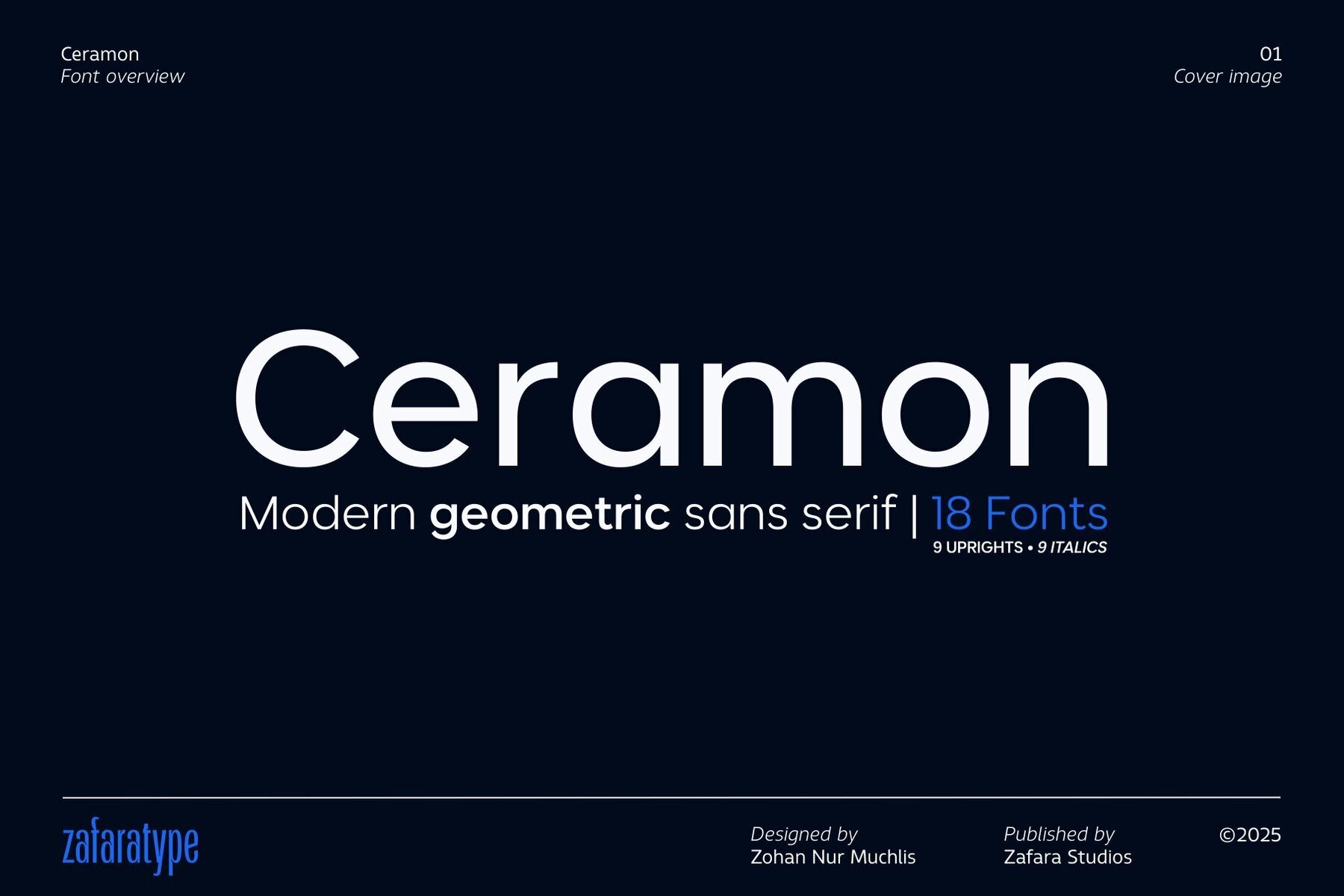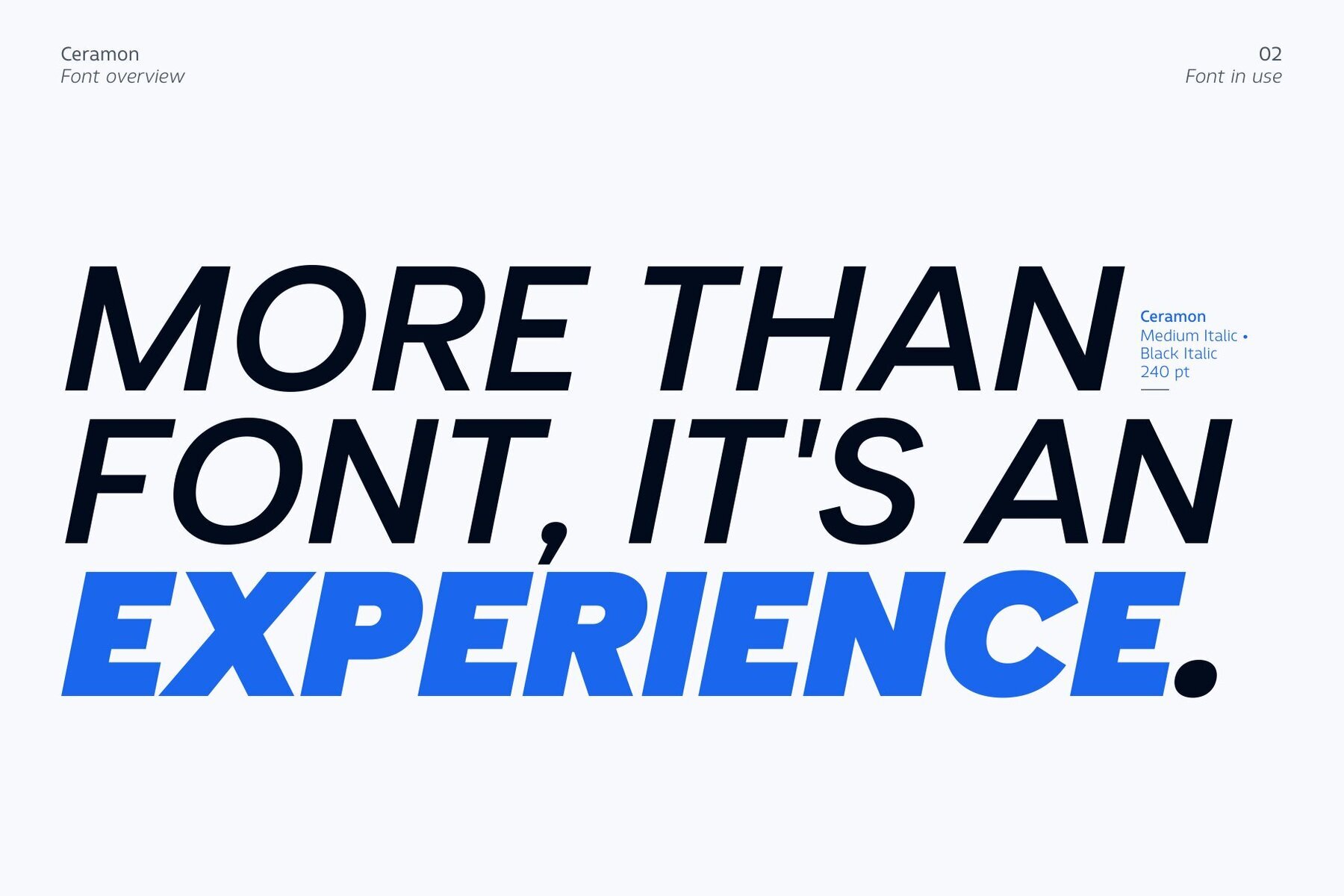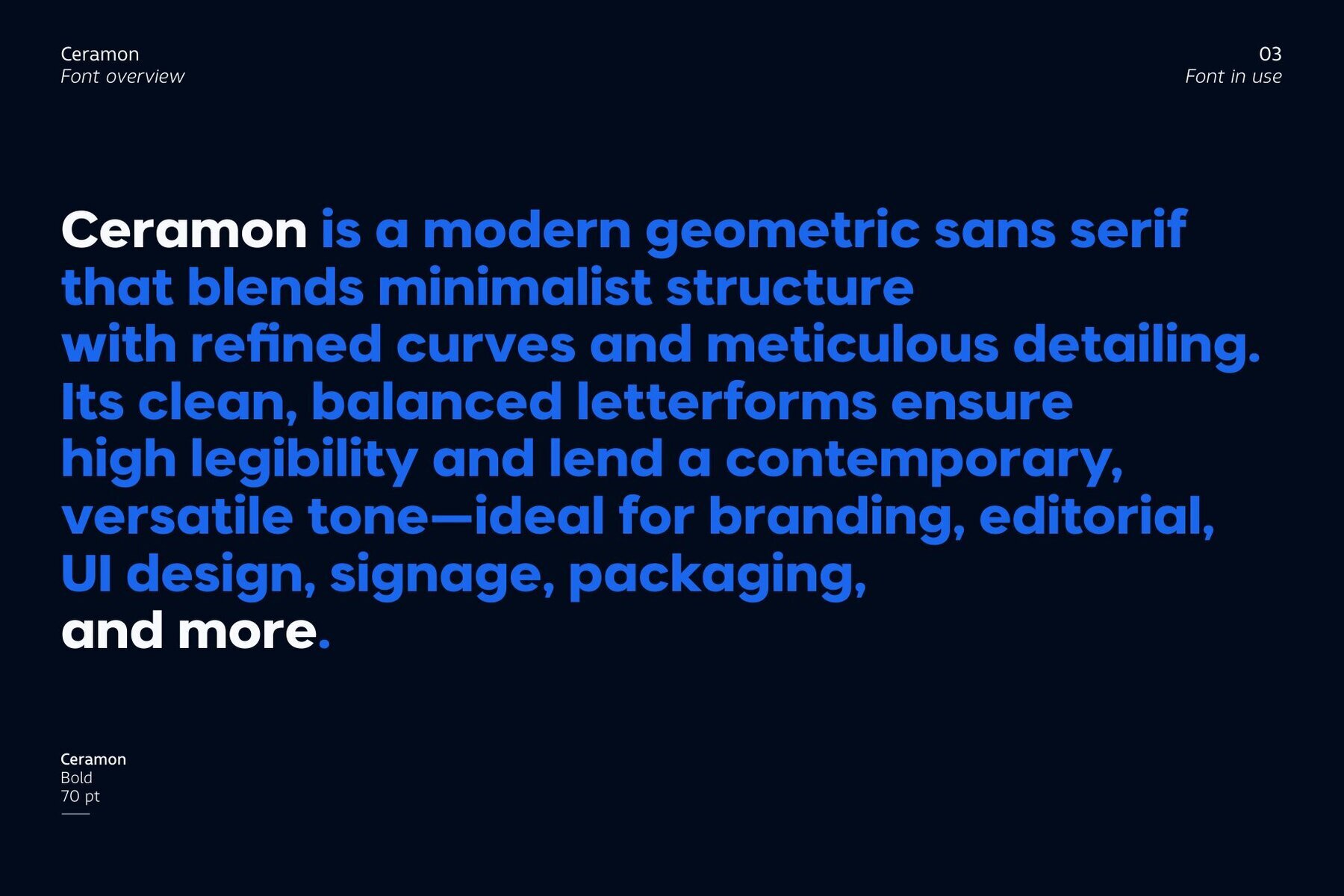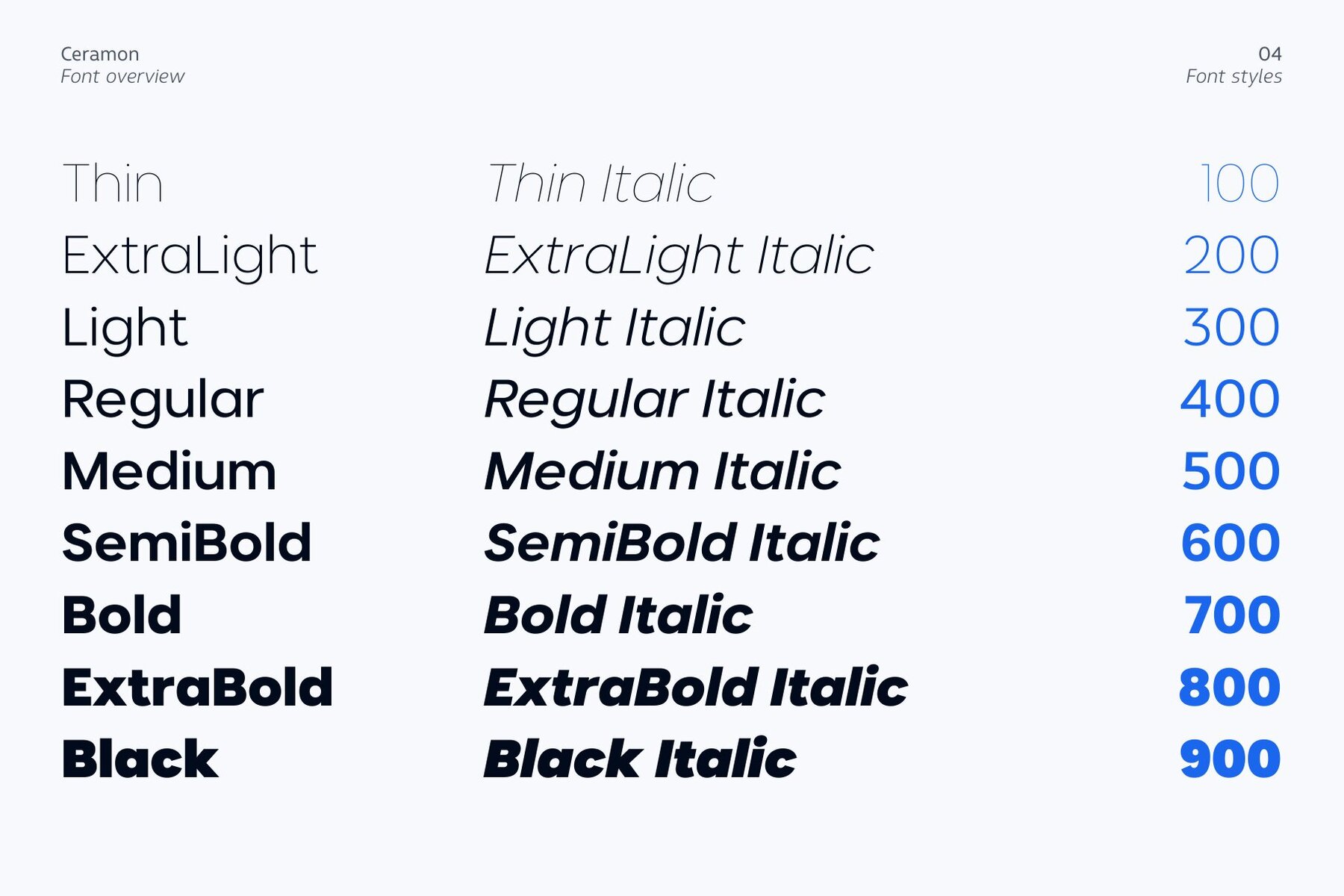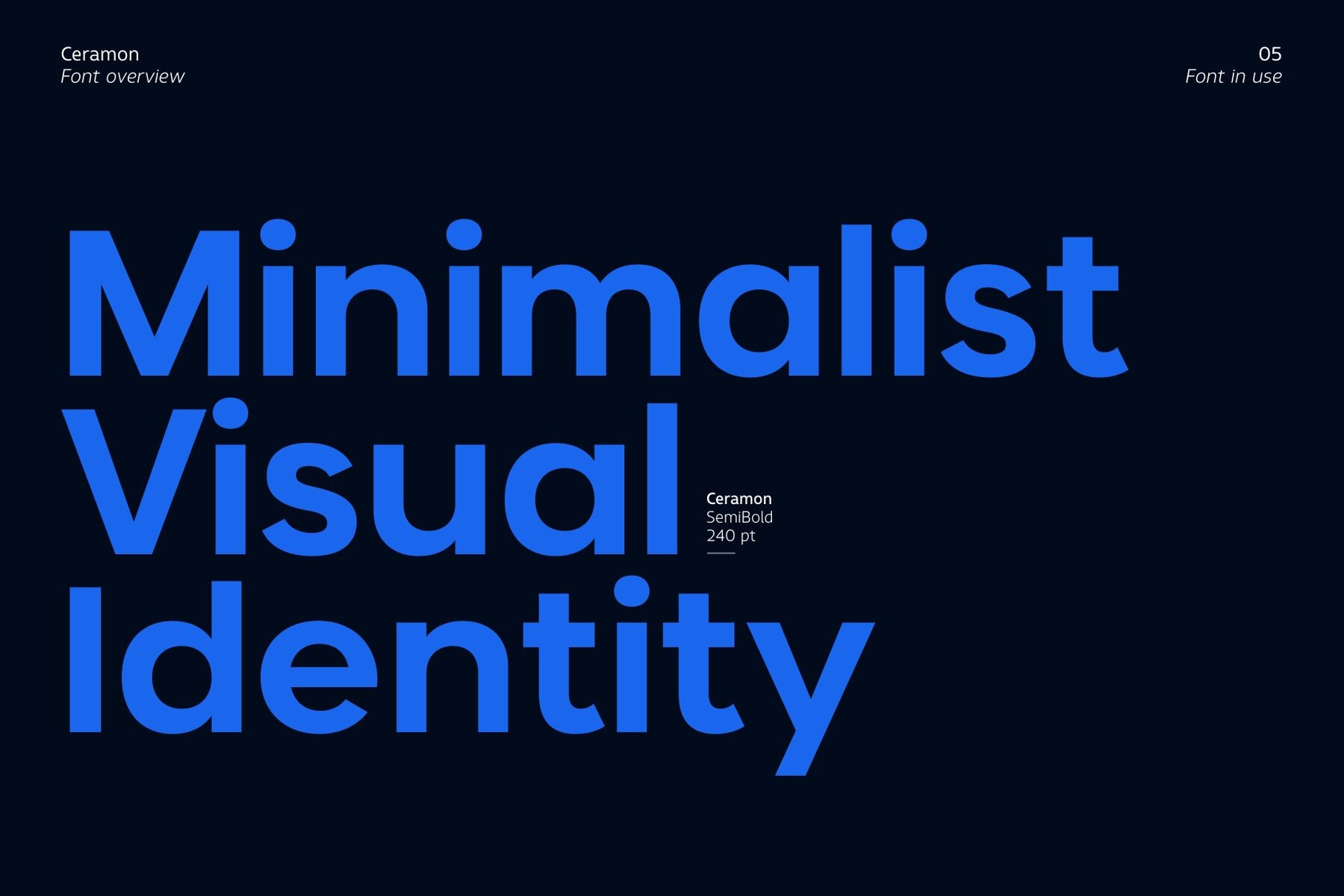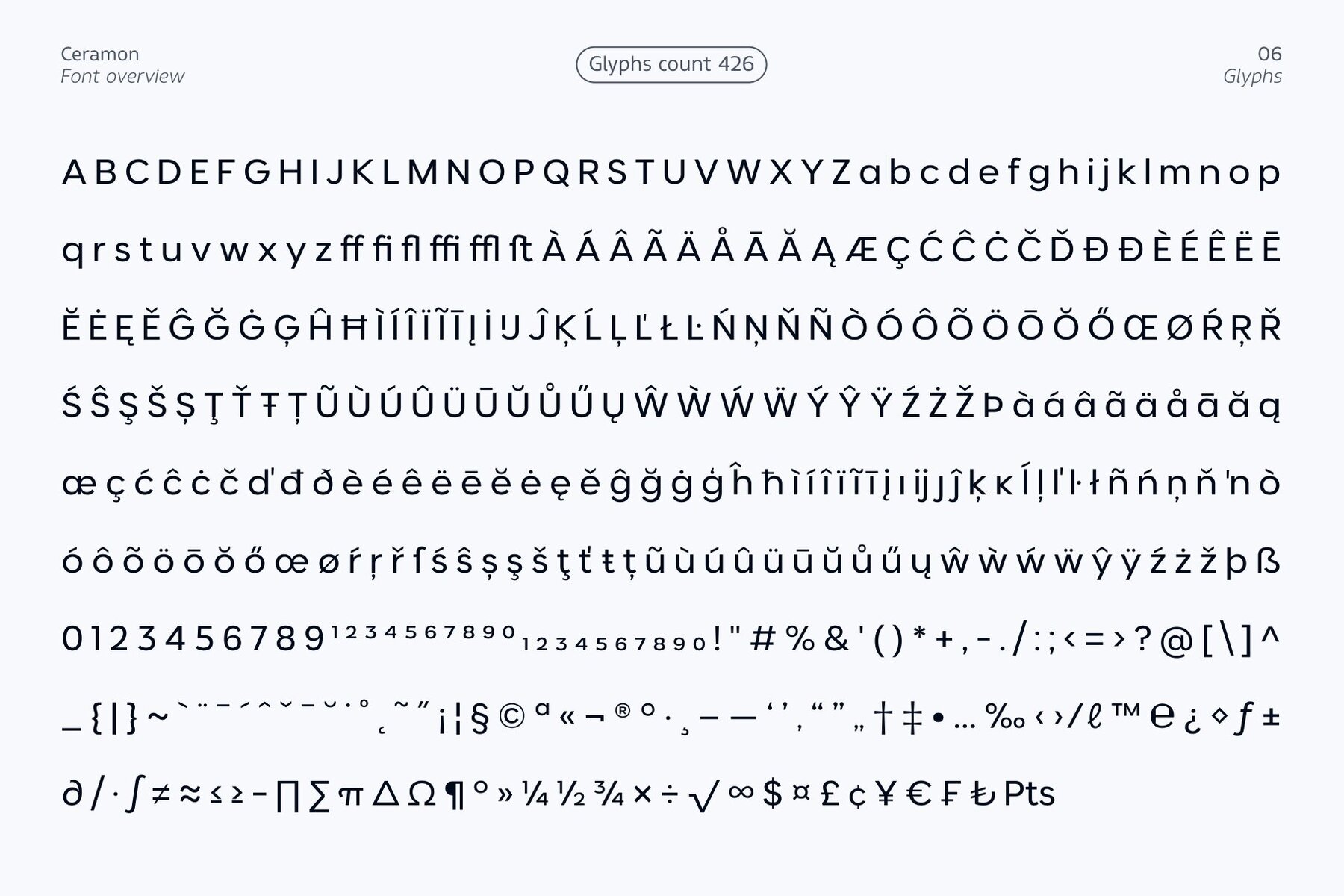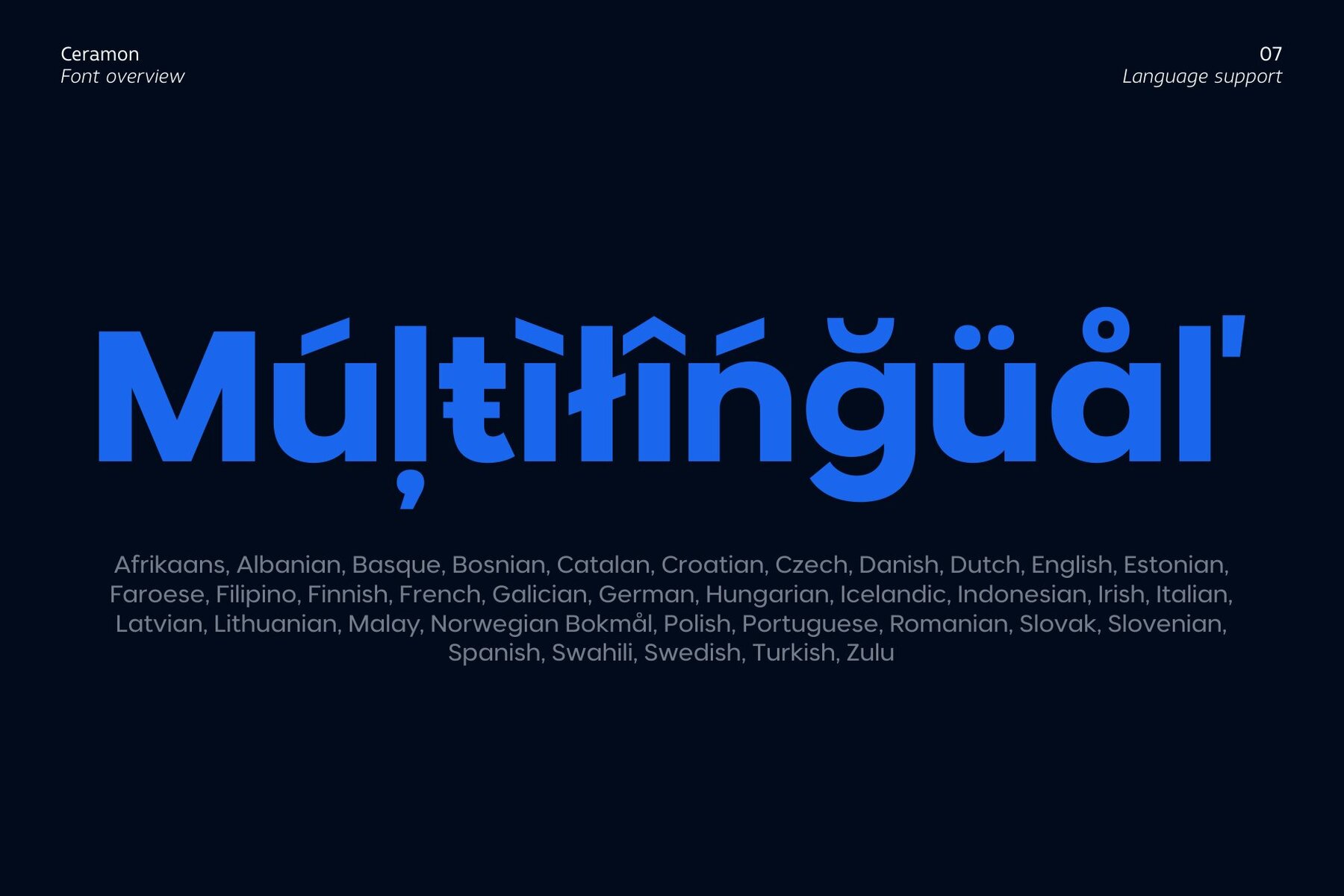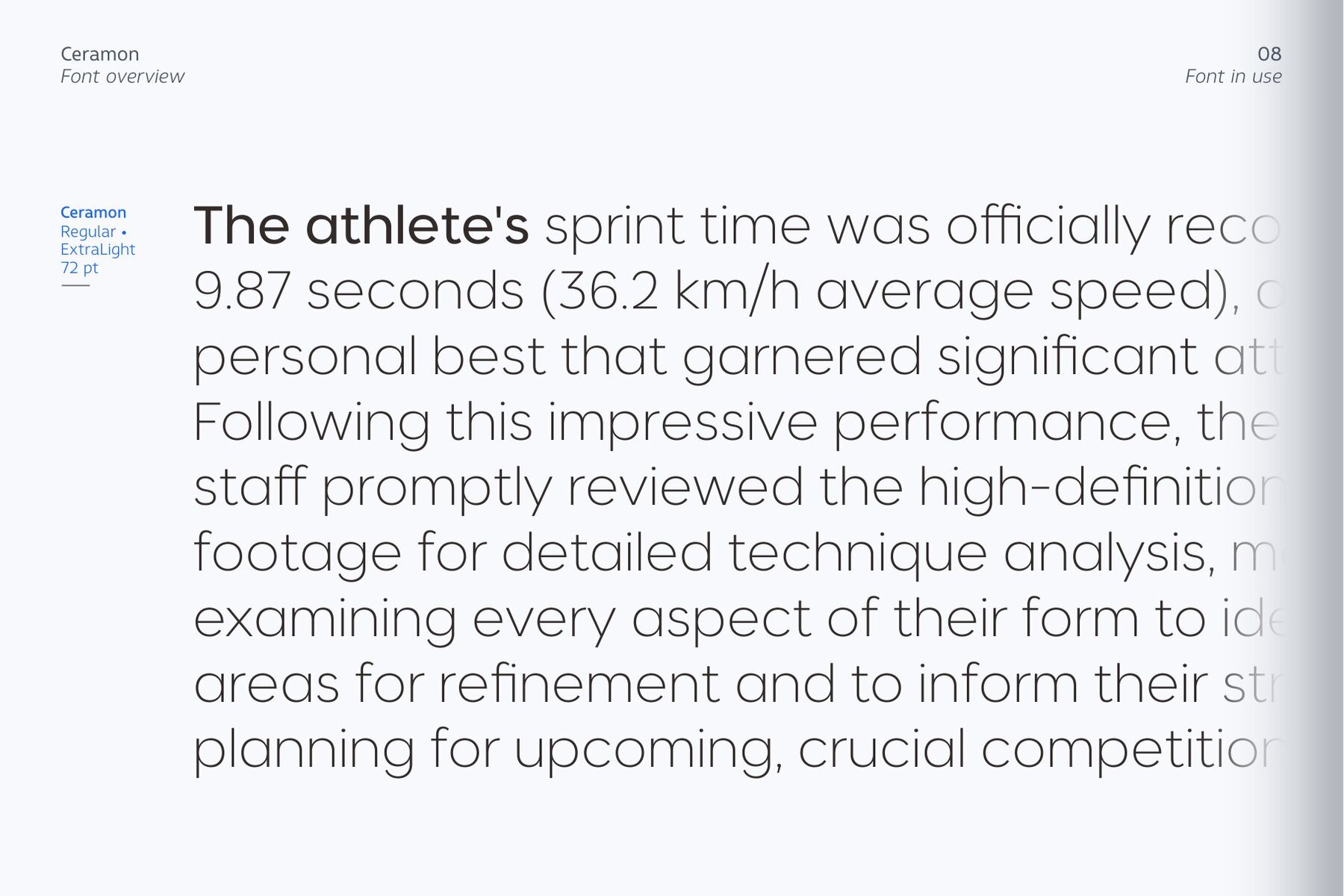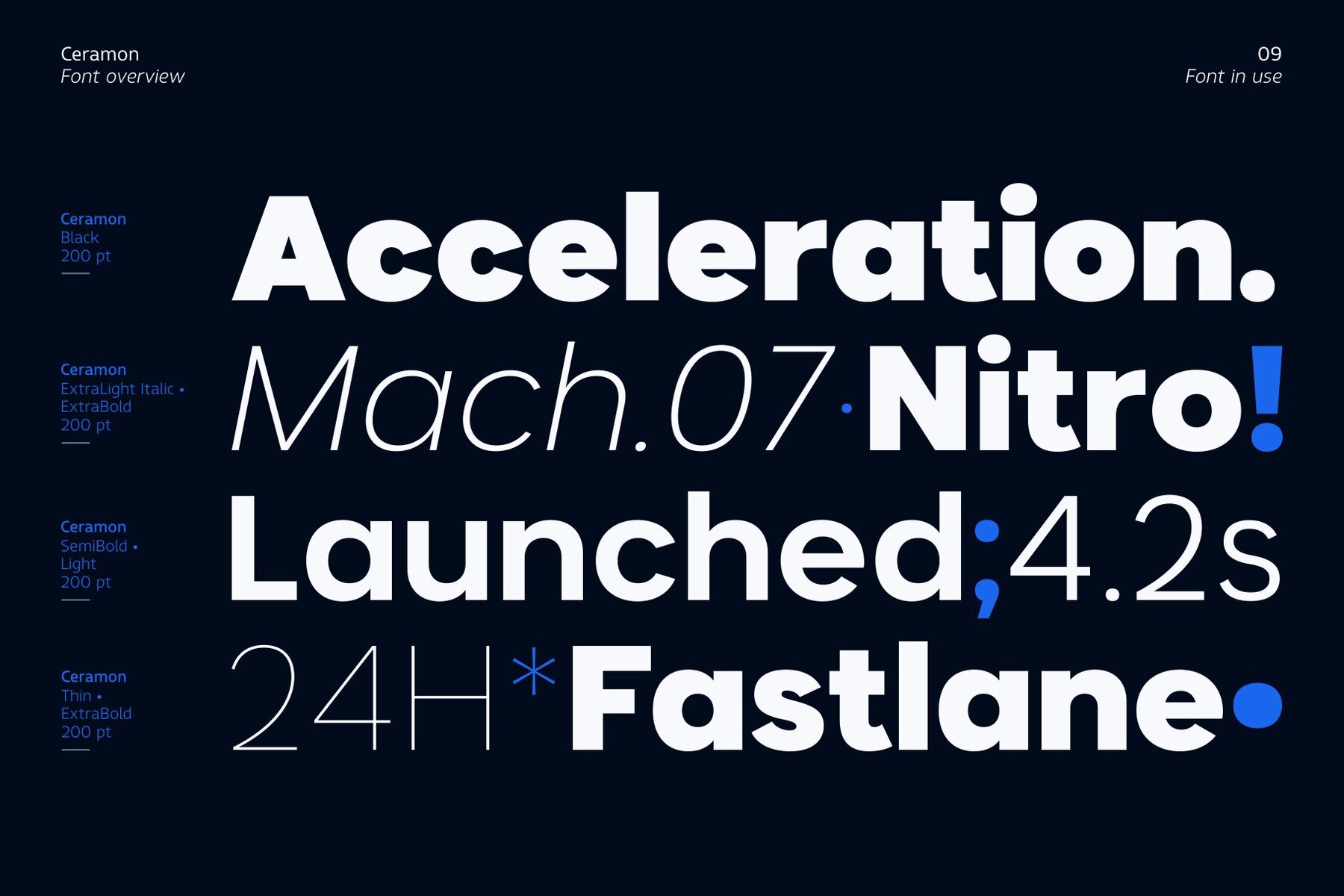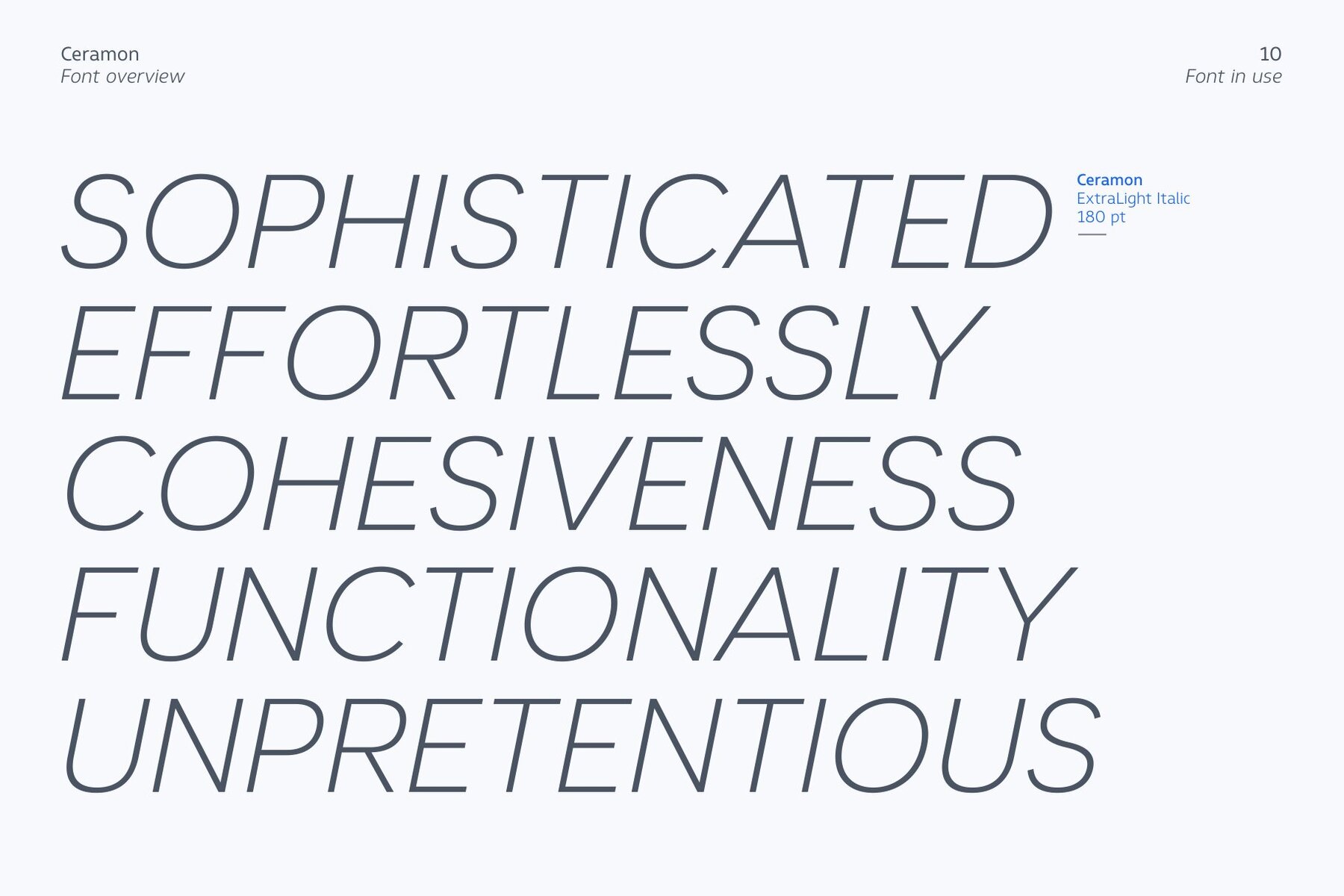
Ceramon Font
Ceramon is a modern geometric sans serif, seamlessly fusing minimalist structure with refined curves and meticulous detailing. Its precise and balanced letterforms ensure high legibility, offering a contemporary and versatile tone. This font is an excellent choice for branding, editorial, UI design, signage, and packaging projects.Ceramon: A Refined Geometric Sans Serif